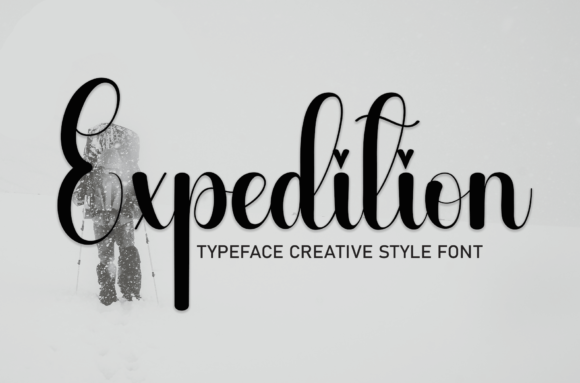
Journey Through Memories with Expedition Font - Capture the Warmth of a Thanksgiving Feast
In a world saturated with digital monotony, handwritten fonts stand out like beacons of individuality and artistry. Expedition Font, a creation of the talented William Jhordy, is an exquisite script font that exudes warmth, charm, and a touch of nostalgia. Its flowing lines dance across the page, evoking memories of handwritten letters, warm embraces, and the comforting aroma of freshly baked pies.
Step into the world of Expedition Font, and embark on a sensory journey that transports you to the heart of a Thanksgiving gathering. Picture yourself surrounded by loved ones, laughter filling the air, and the table laden with a feast of culinary delights. The Expedition Font captures this essence, transforming your digital creations into tangible expressions of love, gratitude, and togetherness.
Whether you're crafting heartfelt invitations, designing heartwarming cards, or adding a personal touch to your blog posts, Expedition Font is the perfect companion. Its versatility extends beyond Thanksgiving; it's a font that embraces all seasons and occasions, adding a touch of elegance and charm to every project you undertake.
With Expedition Font, your words take on a life of their own, dancing across the screen with grace and fluidity. It's a font that speaks to the heart, evoking emotions and creating a lasting impression. Its ability to transform ordinary text into heartfelt messages makes it an invaluable tool for anyone seeking to connect with their audience on a deeper level.
So, embark on this typographic adventure and discover the magic of Expedition Font. Let your creativity soar, express your emotions with authenticity, and create digital masterpieces that resonate with your audience. Join the Expedition Font community and experience the joy of bringing warmth and personality to your digital world.